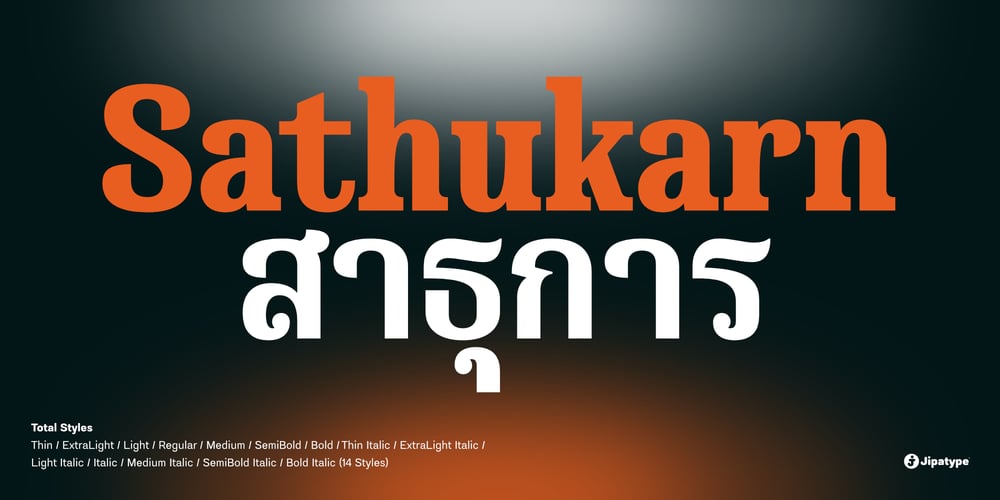
Sathukarn Font Family was designed by Anupap Jaichumnan and published by Jipatype. Sathukarn contains 14 styles and family package options. Sathukarn is a versatile typeface featuring serif for Latin letters and sans serif for Thai characters with a distinctive circular head, it offers 14 styles to cater to diverse needs, supporting Latin-1 and Thai Unicode. Ideal for both digital and print publications, it embodies themes of peace and faith.